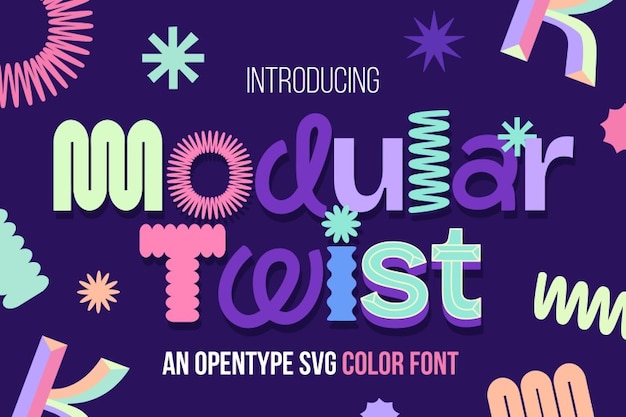
"Modular Twist" is an experimental, modern font that plays with geometric shapes and unconventional structures. Its sleek, fashionable design features modular elements that can be twisted and adapted, creating a dynamic and forward-thinking look. Perfect for contemporary branding, creative projects, and cutting-edge designs, this font offers a fresh, bold twist on modern typography.